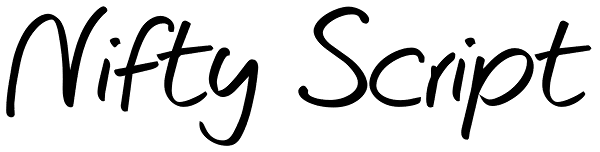
Nifty Script
The “Ultimate Script”? Not yet, but we’re working on it! Just think: Loads of ligatures, contextual variations and stylistic alternates, coupled with easy use…Just what you’ve been looking for all this time? Well, here it is with all of its...